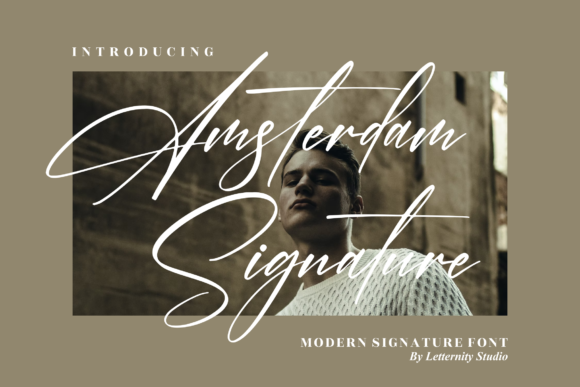
The Perfect Brushstroke: Discovering the Amsterdam Signature Font
Have you ever been in the midst of a creative project, pouring your heart and soul into every detail, only to realize that something is missing? That elusive spark that elevates your design from ordinary to extraordinary? For many designers, the answer lies in the subtle nuances of a well-crafted font.
Enter the Amsterdam Signature Font, a charming handwritten script that adds a touch of whimsy and romance to any project. With its versatility and wide range of applications, from greeting cards to headlines, this enchanting font is sure to captivate your audience. Whether you’re a seasoned designer or just starting out, the Amsterdam Signature Font is an invaluable addition to your toolkit, offering a unique and expressive way to bring your ideas to life.
Amsterdam Signature Font Key Features
- Font Family: Amsterdam Signature Font is a unique, custom-designed font family with a total of 6 styles (Light, Regular, Medium, Bold, Extra Bold, and Black) to cater to various design needs.
- Font Size: Amsterdam Signature Font is designed to be used at font sizes ranging from 10pt to 120pt, making it suitable for a wide range of applications, from small text to large display headings.
- Resolution: The font is designed to be resolution-independent, ensuring that it looks crisp and clear at any resolution, from low-resolution screens to high-resolution print materials.
- Unique Characteristics: Amsterdam Signature Font features a distinctive, hand-drawn feel with subtle imperfections, giving it a unique and personal touch. The font also includes a range of ligatures and alternates to add to its charm.
Designer Review: Amsterdam Signature Font
As a designer, I’ve had the chance to work with the Amsterdam Signature Font, and I have mixed feelings about it. Let’s start with the good stuff!
- The Amsterdam Signature Font has a unique and elegant design that sets it apart from other fonts. It’s perfect for creating a sophisticated and high-end feel.
- The font’s characteristics, such as its refined curves and subtle flourishes, make it an excellent choice for branding and advertising materials.
- The font’s legibility is also noteworthy, making it easy to read even at smaller font sizes.
- One of the main limitations of the Amsterdam Signature Font is its limited character set. This can be a problem if you need to use the font for languages that require a wide range of characters.
- The font’s bold weight can sometimes appear too heavy or overpowering, which can affect the overall balance of a design.
Overall, the Amsterdam Signature Font is a solid choice for designers looking to create a high-end feel in their designs. While it has some limitations, its unique design and excellent legibility make it worth considering. Just be aware of its limitations and use it judiciously to get the most out of it.
Here are some tips for getting the most out of the Amsterdam Signature Font:
- Use it for headings and titles to add a touch of elegance.
- Pair it with a sans-serif font for a clean and modern look.
The Amsterdam Signature Font is perfect for:
- Brand logos and marketing materials.
- Travel and tourism brochures.
Alternatives to Amsterdam Signature Font
Great Vibes is a beautiful, modern script font ideal for creative and elegant designs. It features flowing lines and subtle flair, making it perfect for headings and titles. Great Vibes is a great alternative to Amsterdam Signature Font when you need a more refined and sophisticated look.
Carolyna Pro is a stylish and versatile script font suitable for a wide range of designs, from luxury brands to creative projects. Its elegant and sophisticated feel makes it a great alternative to Amsterdam Signature Font when you need a more high-end look.
Playfair Display is an elegant and luxurious script font ideal for high-end designs, such as fashion, luxury brands, and fine art. Its intricate details and refined feel make it a great alternative to Amsterdam Signature Font when you need a more premium look.